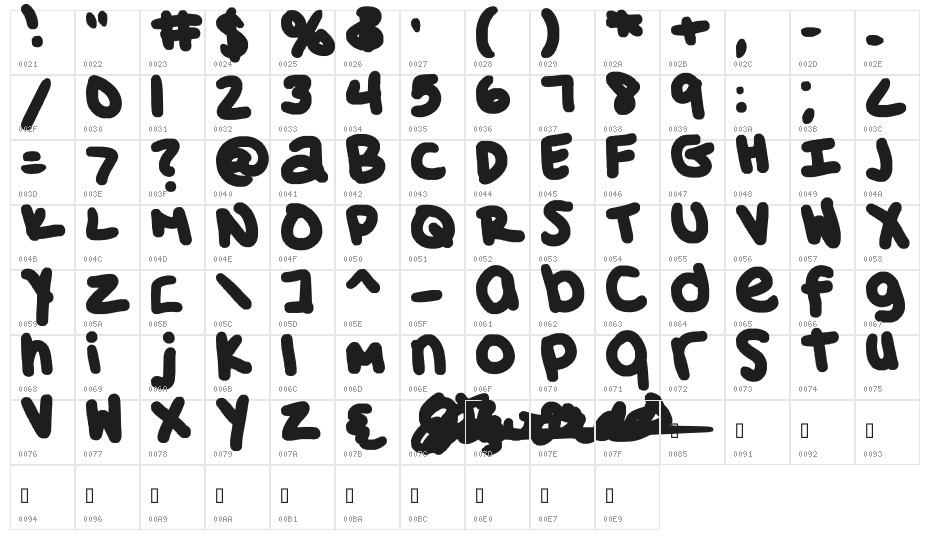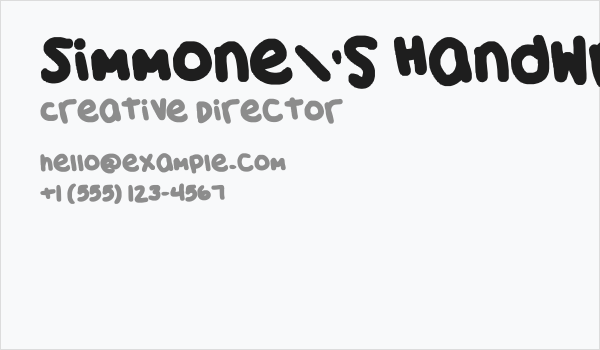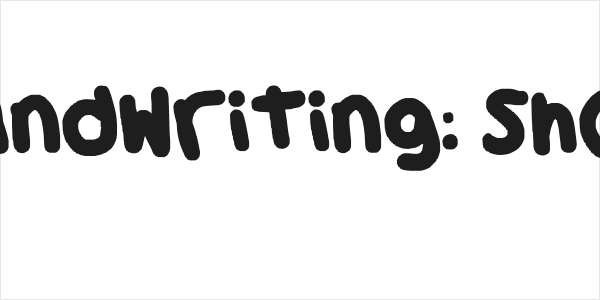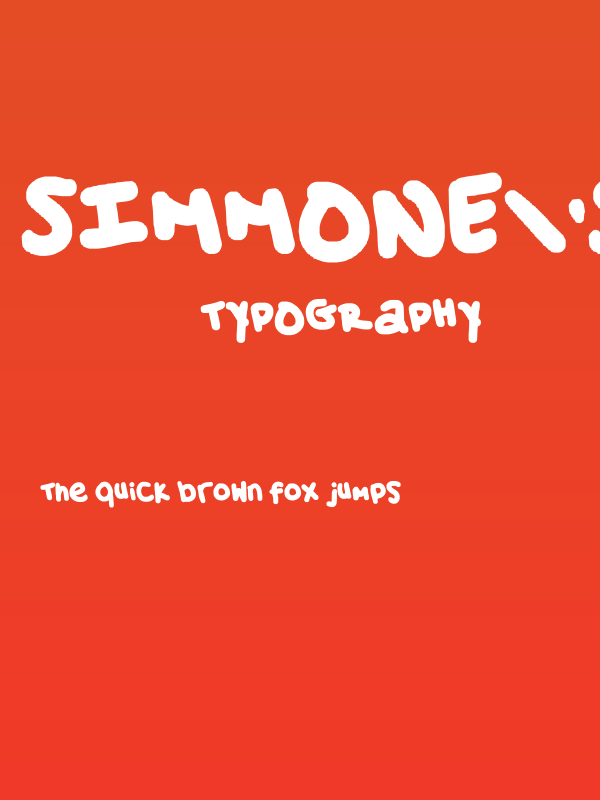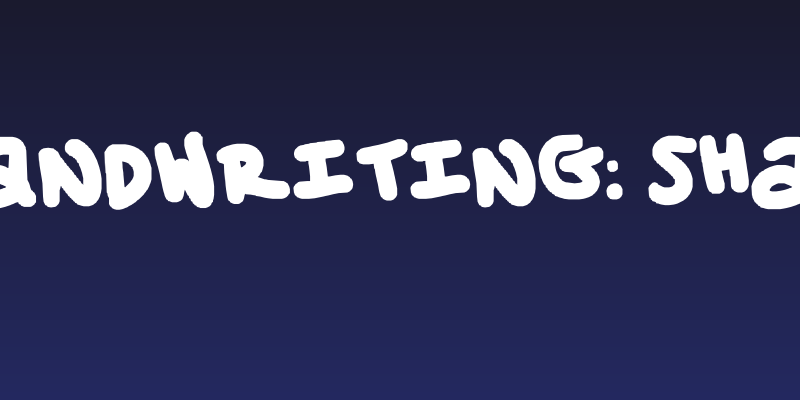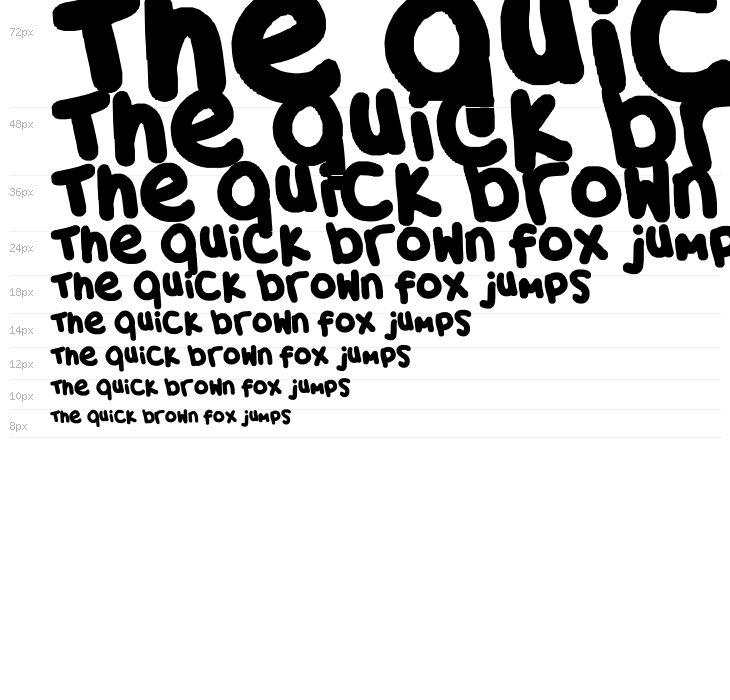
Simmone's Handwriting: Shards of Glass Font
Simmone's Handwriting: Shards of Glass Description
This font features a bold, playful, and informal style, reminiscent of casual handwriting. The characters are rounded and slightly irregular, giving them a friendly and approachable appearance. The strokes are thick and consistent, contributing to a strong visual presence. The font includes both uppercase and lowercase letters, numbers, and a variety of special characters. Its informal nature makes it suitable for creative projects that require a personal touch.
| Proposed Projects | Ideal for children's books, greeting cards, posters, and playful branding. |